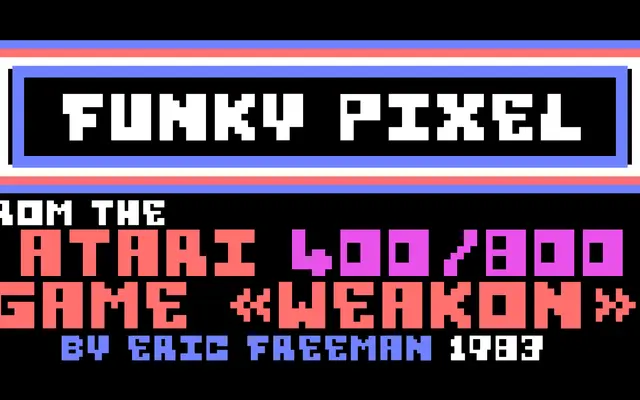
BD Weakon
A pixel typeface recreated and extended from the Atari 400/800 game Weakon, originally programmed by Eric Freeman in 1983.
Built from the bitmap letterforms of a 1983 Atari game, BD Weakon captures the chunky, lo-fi character of early home computing. The single Regular weight covers Basic Latin and West European characters, making it suitable for retro gaming projects, display headings and nostalgia-driven work. Released in 2024 by Type Different.
A pixel typeface recreated from an early 1980s Atari game, making it a display-oriented bitmap design with a retro gaming aesthetic.